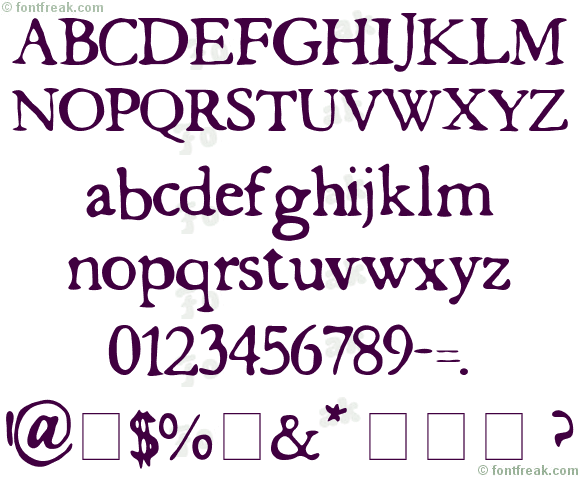
butterbrotpapier
Butterbrotpapier is a distinctive display font designed by Anke Art, characterized by its playful and quirky style. This typeface falls into the decorative category, making it an ideal choice for projects that require a unique and eye-catching appearance. The font features a moderate stroke weight with a mix of rounded and sharp edges, creating a lively yet balanced aesthetic. Its irregular baseline and slightly varying letter spacing add to its charm, giving it a handcrafted feel that stands out in any design.
With its whimsical character, the Butterbrotpapier font is well-suited for various creative applications. It shines in wedding invitations, where its playful nature can bring a touch of joy to the occasion. In the realm of food and beverage, restaurant menus can benefit from its engaging appearance, enticing diners with a handwritten touch. Additionally, this font can elevate movie posters, particularly for indie films looking to capture a unique vibe. Content creators can also employ Butterbrotpapier in social media graphics or promotional materials, adding a delightful flair that grabs attention.
What truly makes the Butterbrotpapier font stand out is its ability to infuse personality into any design. Its charming and unconventional style captures the essence of creativity, making it a must-have for those seeking to make a lasting impression. The Butterbrotpapier font free download allows you to explore its unique attributes and incorporate them into your projects with ease.